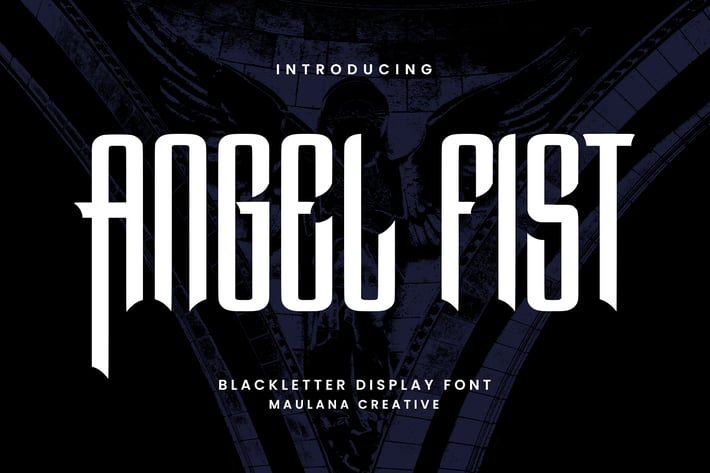
Angel Fist Blackletter Font
Angel Fist blackletter display font, fun character with alternates. To give you an extra creative work. Angel Fist font support multilingual language. This font is good for logo design, Social media, Movie Titles, Books Titles, a short text even a long text letter and good for your secondary text font with script or serif. Make a stunning work with Angel Fist font.